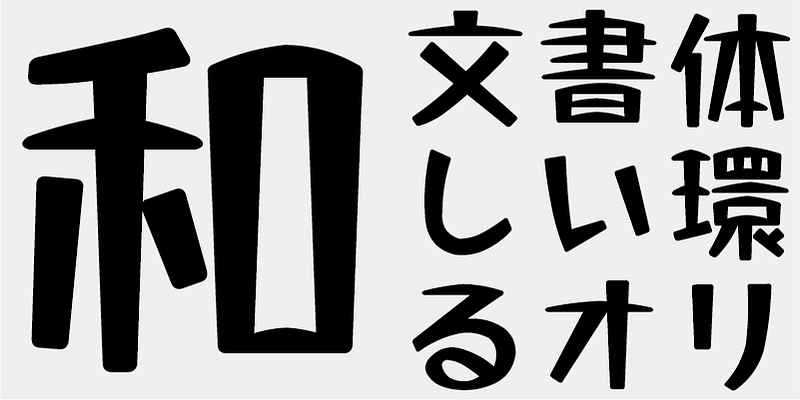
AB Kotatsu Font Free Download is a stylish, modern typeface inspired by the cozy and welcoming feel of traditional Japanese design. With its clean lines and geometric simplicity, AB Kotatsu is perfect for a wide range of design projects—from branding and editorial design to web design and signage.
Its distinctive style, combining bold and rounded forms, offers excellent readability while maintaining a strong visual presence. The font supports both Japanese and Latin scripts, making it versatile for bilingual and international design projects.